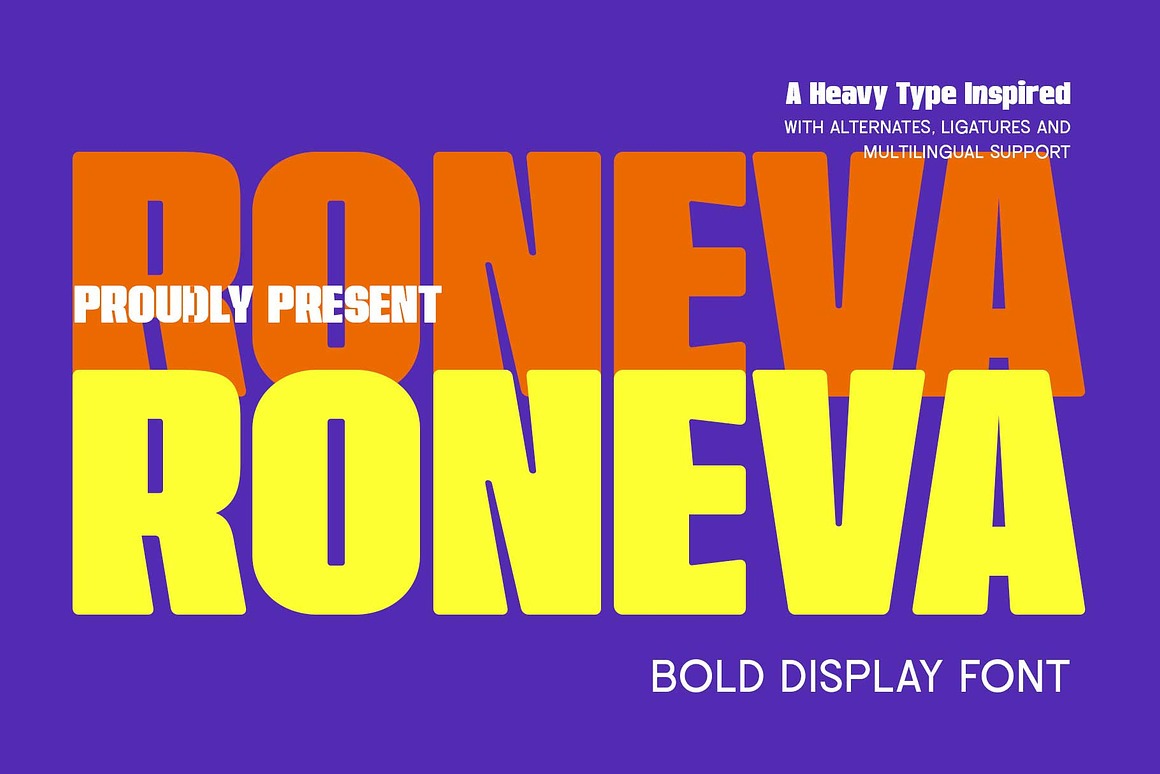
Roneva Font
About Roneva
Bring playful rhythm and bold character into your designs with Roneva — a condensed sans serif crafted in a funky style full of personality. With its chunky letterforms, groovy curves, and energetic flow, this typeface is perfect for projects that need to stand out with confidence and fun vibes.